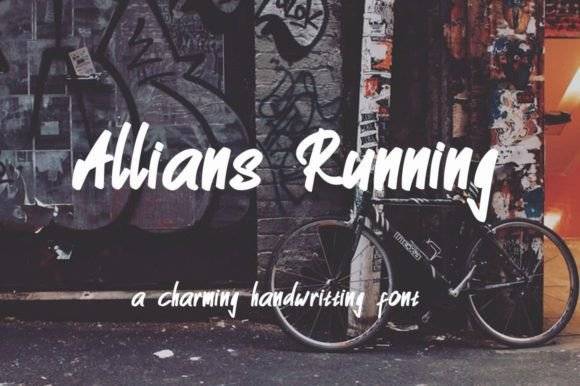
Allians Running Font for Cricut, Silhouette and Printable Designs
This is a fast-paced, handwritten script font built for creators using Cricut, Silhouette, and print design software. Allians Running features fluid motion and casual elegance, capturing the spirit of handwriting with speed and style.
As a font entity, it delivers a kinetic aesthetic perfect for crafting standout text on apparel, signage, and personalized gifts. Its optimized spacing and legibility make it a go-to choice for designers working on print-and-cut workflows.
From hobby crafts to professional branding, Allians Running adapts to every curve of your creativity.
- Natural script with a fast, fluid feel
Q: What kind of font is Allians Running?
A: Allians Running is a flowing handwritten script font designed for crafting, cutting, and printable design use.